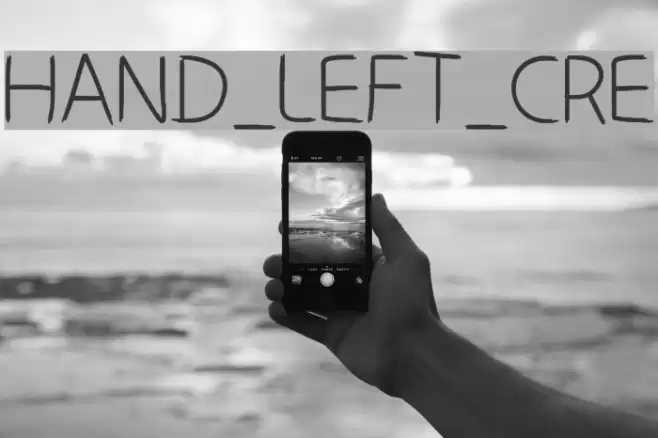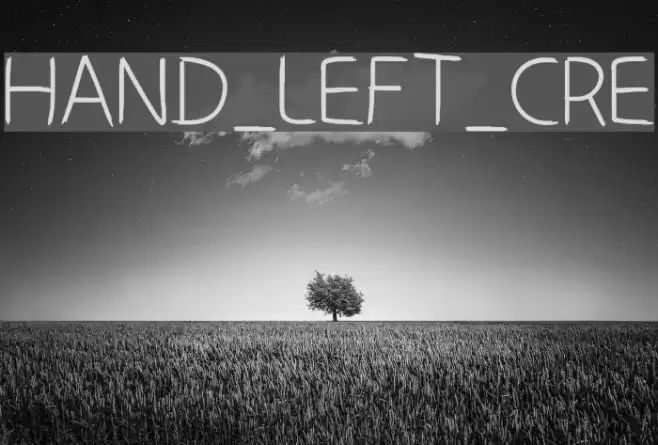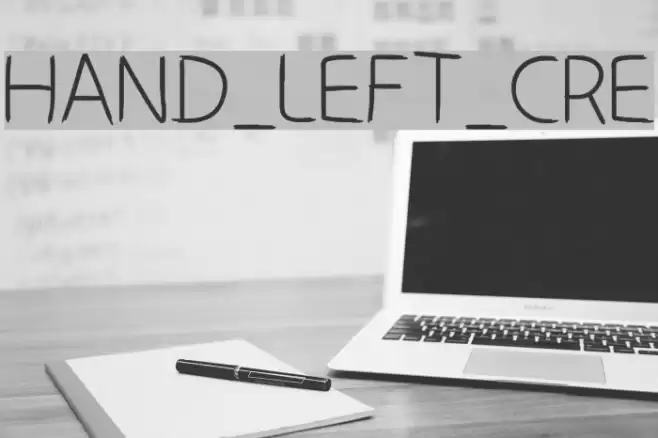
HAND_LEFT_CRE Font
HAND_LEFT_CRE Description
This font features a playful and casual handwritten style, characterized by its uneven strokes and slightly irregular letterforms. The uppercase and lowercase letters maintain a consistent height, giving it a cohesive appearance. The numerals and special characters follow the same informal aesthetic, making it suitable for projects that require a personal touch. The strokes are moderately thick, providing good readability while maintaining a friendly and approachable vibe. This font is ideal for creative projects, invitations, and informal branding.
A playful handwritten font with uneven strokes and a casual style from Uncategorized fonts.
- Proposed Projects: Ideal for invitations, greeting cards, personal branding, and creative projects.
- Overall Style: Casual, Playful
- Use Case: Headlines, Informal text, Creative projects